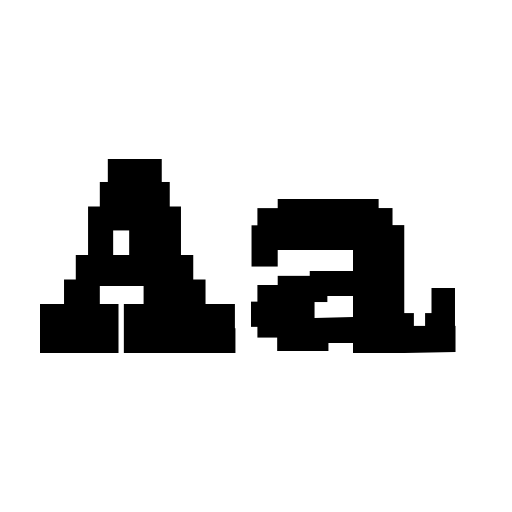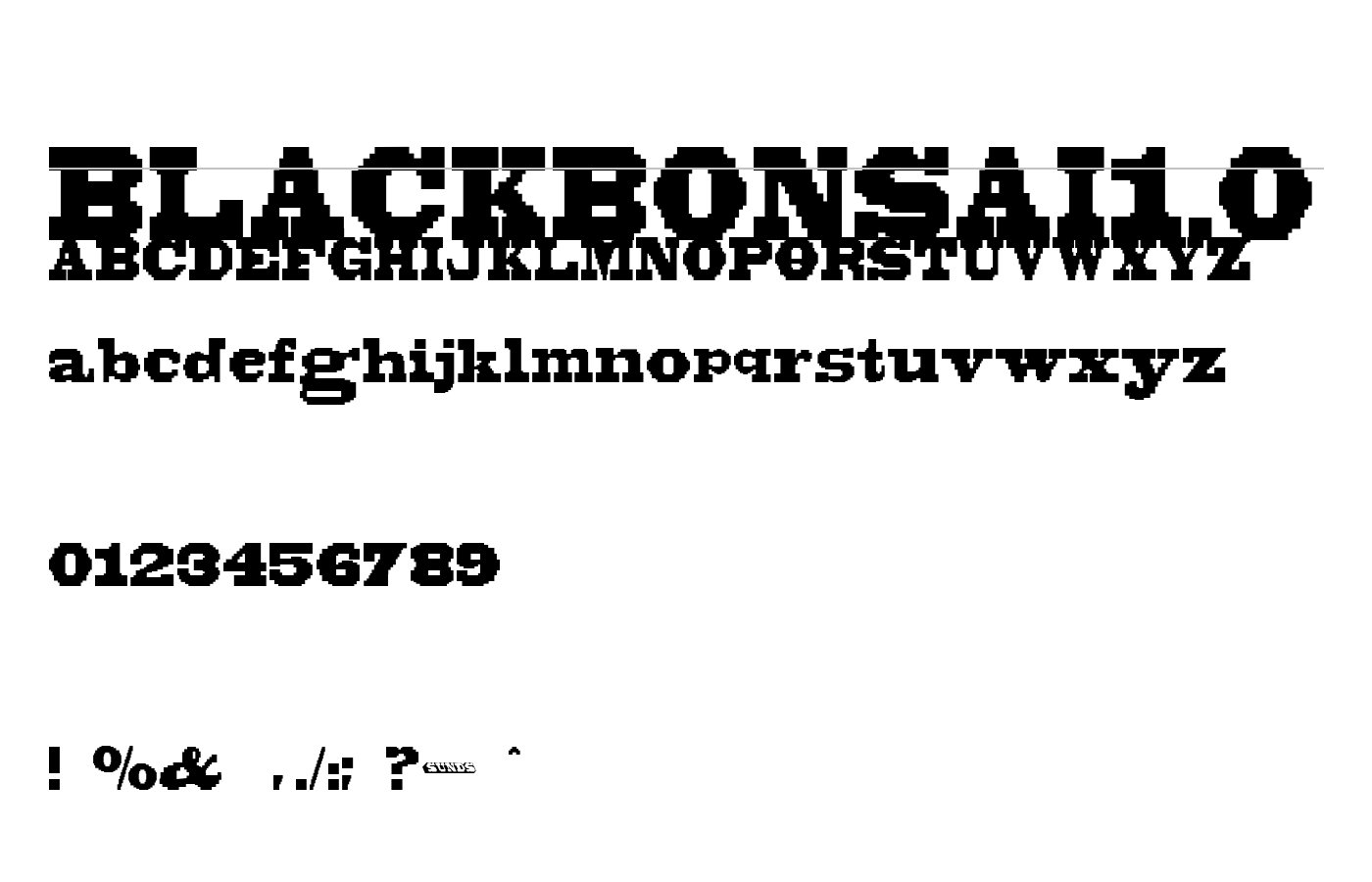
BLACKBONSAI1.0 is a bold slab serif font with a distinctly heavy, blocky appearance and high contrast between thick and thin strokes. Its rough, textured edges give it a vintage, rugged feel, making it ideal for eye-catching headlines, posters, and designs requiring a strong, impactful presence. This font works well for branding that aims to convey strength and character with a bold, organic touch.
BLACKBONSAI1.0 Font